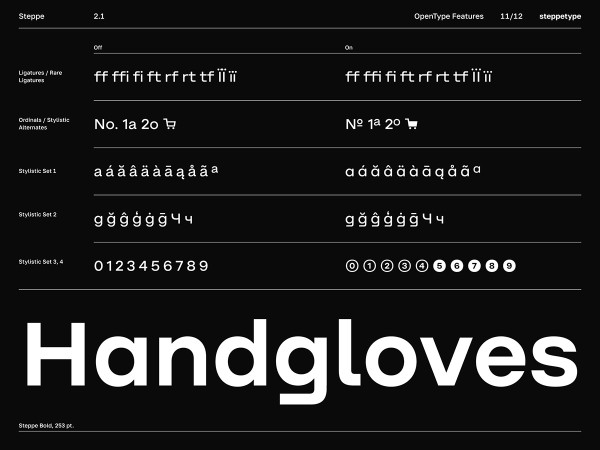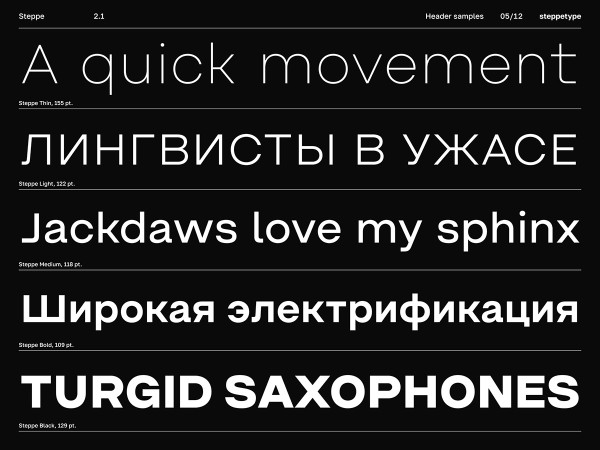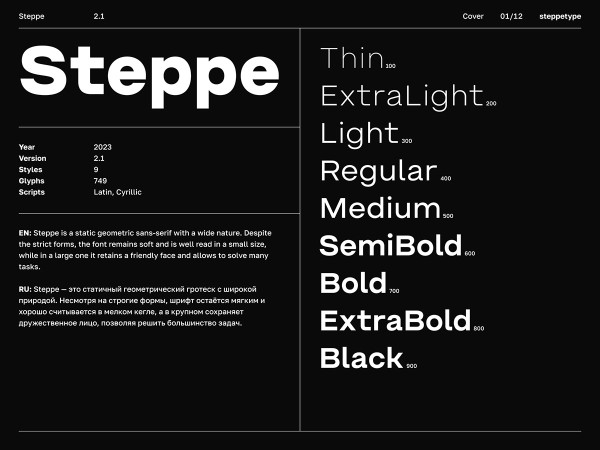
Steppe Font
Steppe Font is a static geometric sans-serif with a wide nature. Despite the strict forms, the font remains soft and is well read in a small size, while in a large one it retains a friendly face and allows to solve many tasks.